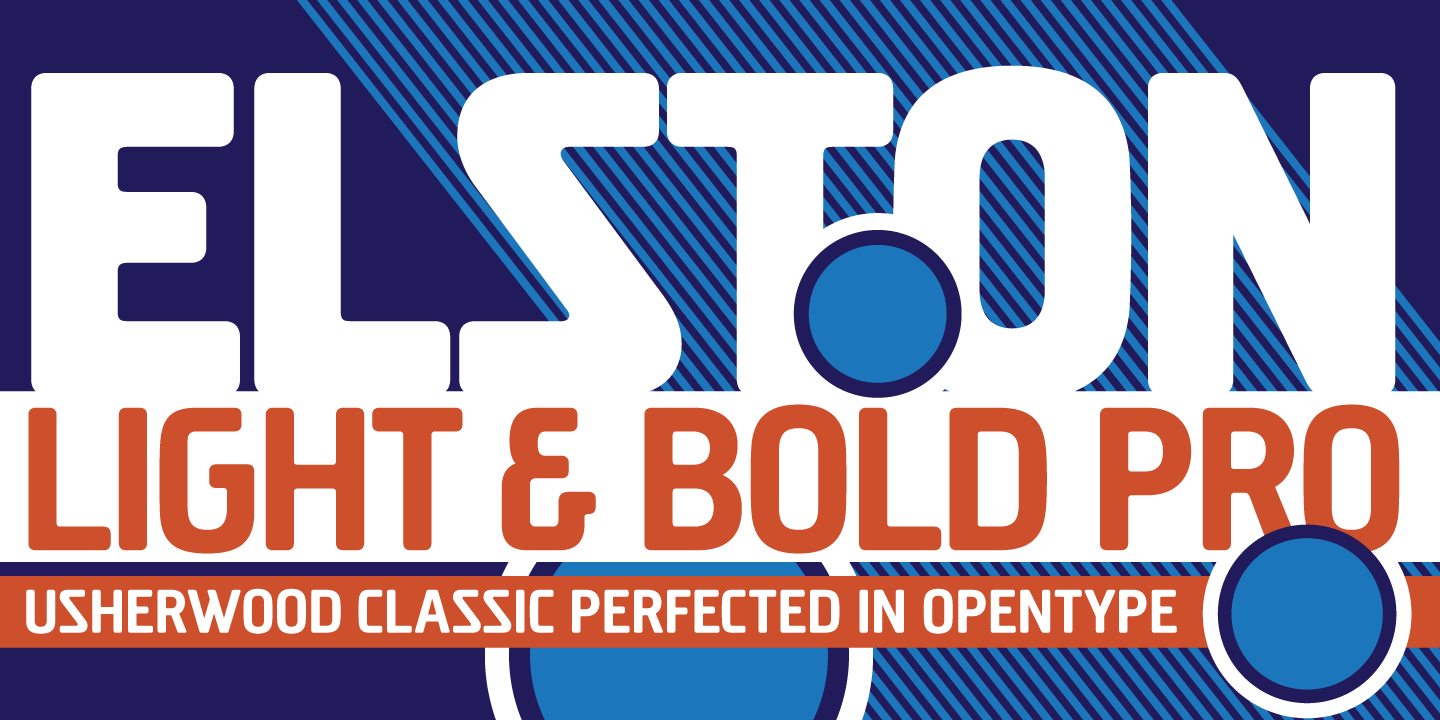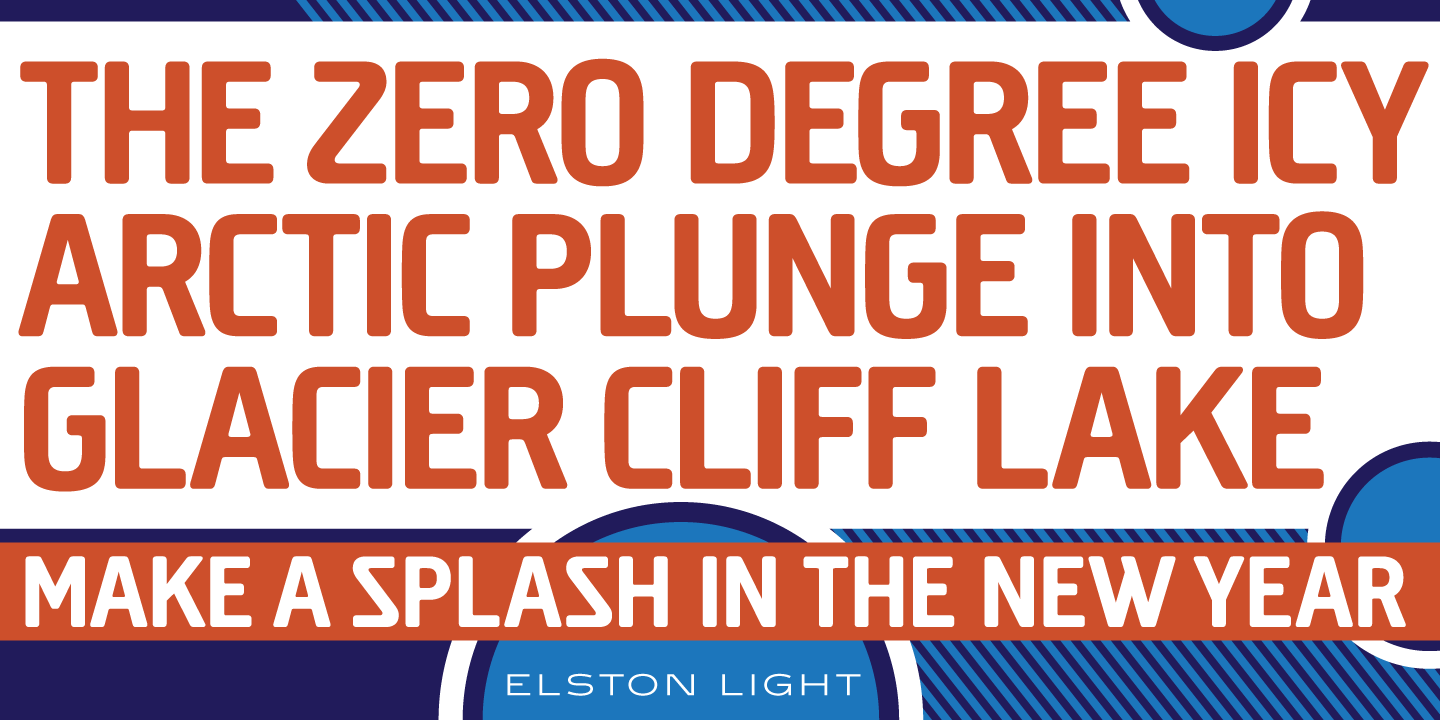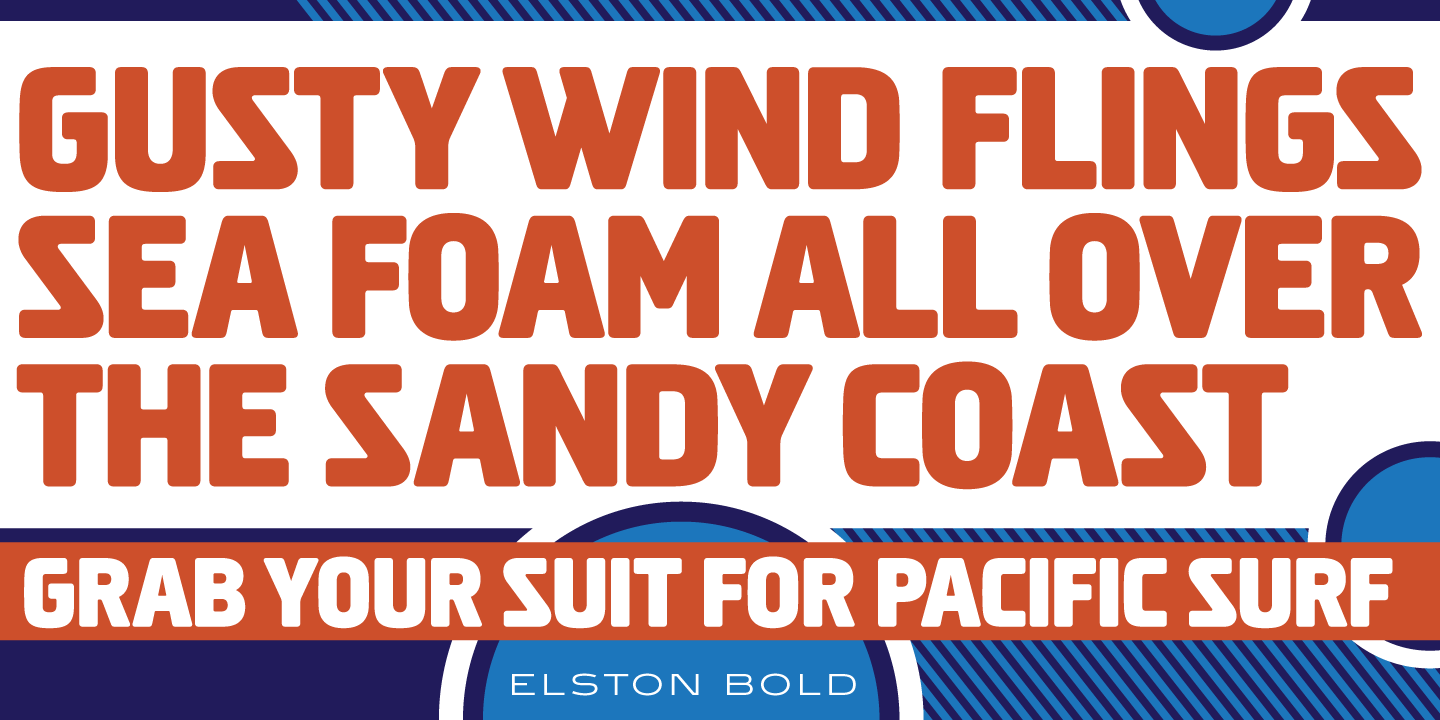
Elston Font Family
Elston is a display sans serif font family designed by Les Usherwood. International TypeFounders exclusively licensed the Elston family from the Typsettra Collection. Elston was originally released in the Red Rooster Collection in 1992, and was completely redrawn and remastered by Steve Jackaman (ITF) and Ashley Muir in 2010. Jackaman experimented with creating a lowercase for Elston, however the designs took on a life of their own and became the Creighton and Megaphone families. Despite its rounded edges, Elston can create quite a sharp impact at display sizes. It can play a variety of roles, and is malleable enough to be used everything from corporate designs to easy-going sports campaigns.
OpenType Features
• Common Ligatures
• Fractions
• Ordinal Numerals
• Stylistic Alternates
• Stylistic Sets
• Subscript
• Superscript